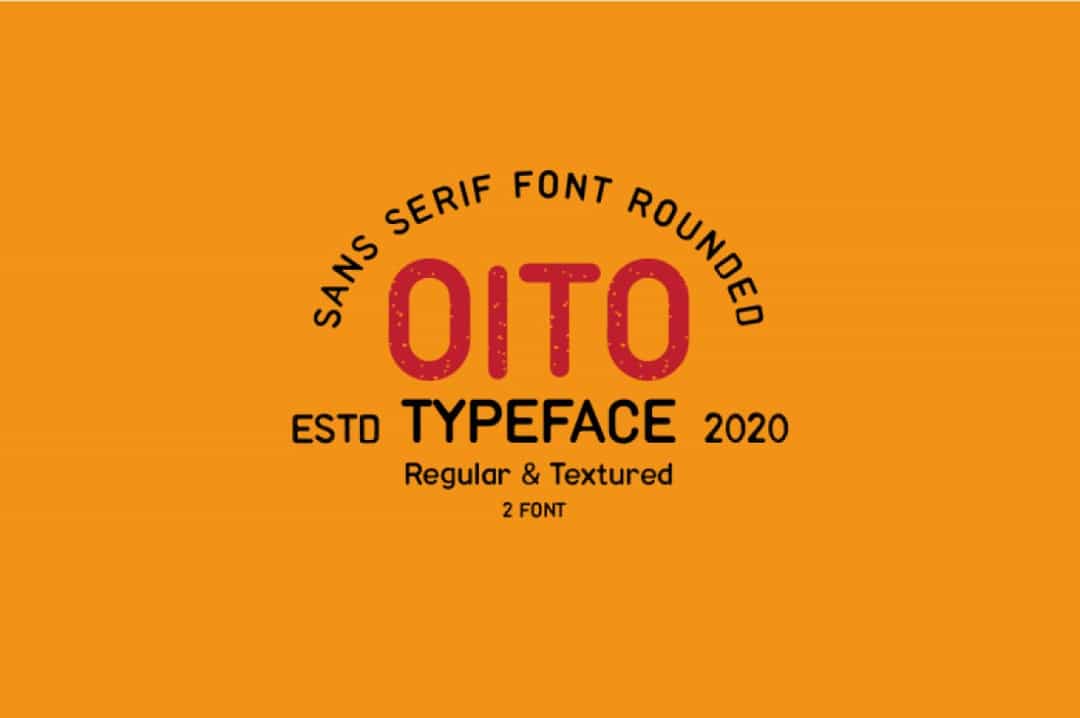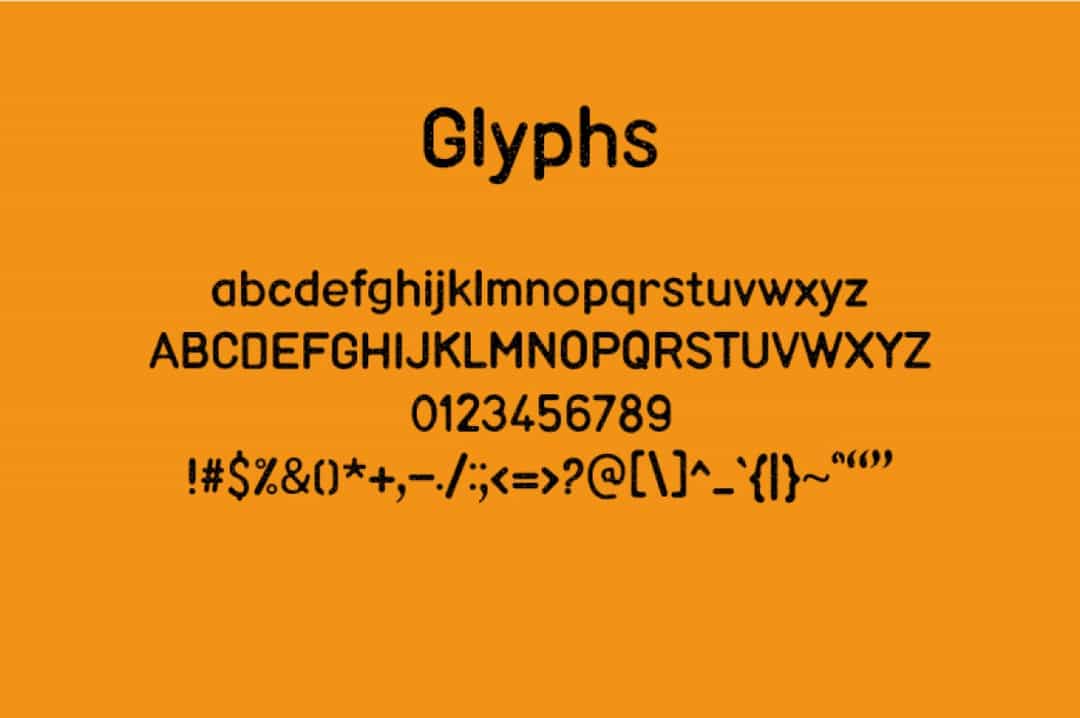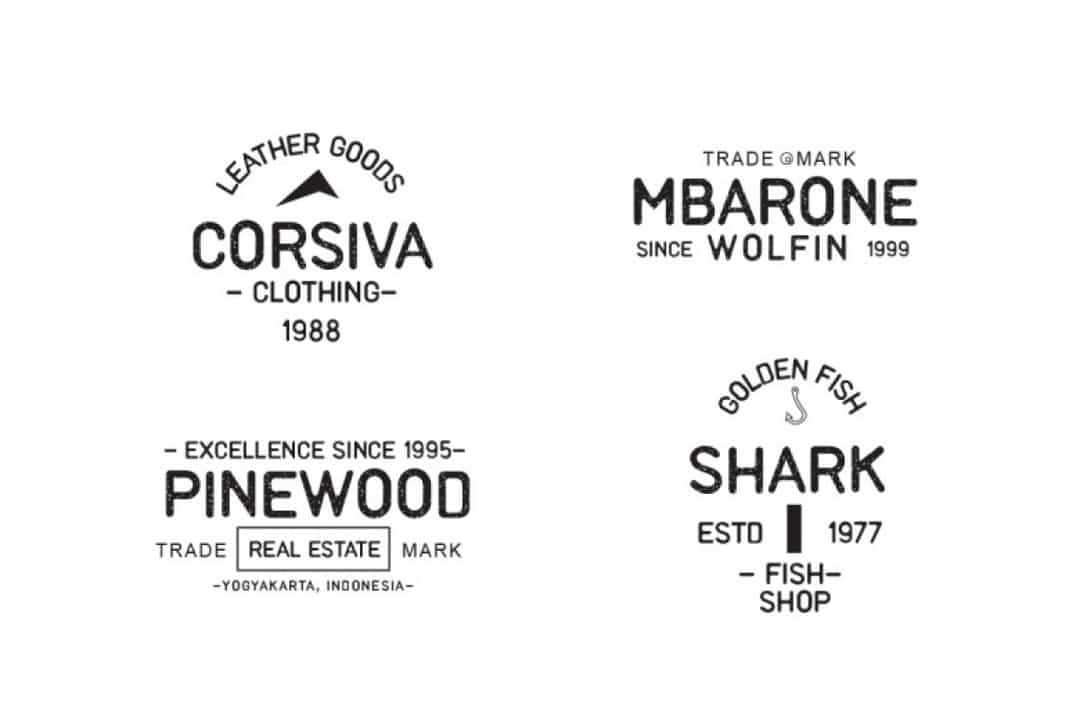
Discover Oito Sans Serif Font Family, part of the Sans Serif Display Basic collection—a versatile and unique font perfect for adding a personal touch to your projects. Download it for free and enjoy crafting designs with style, from invitations to social media posts. This font is available exclusively for personal use, giving you the freedom to create without limits. Unlock your creativity with Oito Sans Serif Font Family today!
Oito is a clean and minimalistic typeface that belongs to the sans serif category, and due to its simple design – it can be easily integrated into any project and provide that extra flare that was needed. Get Oito involved now in the project to feel the full peculiarities of its visual appearance.